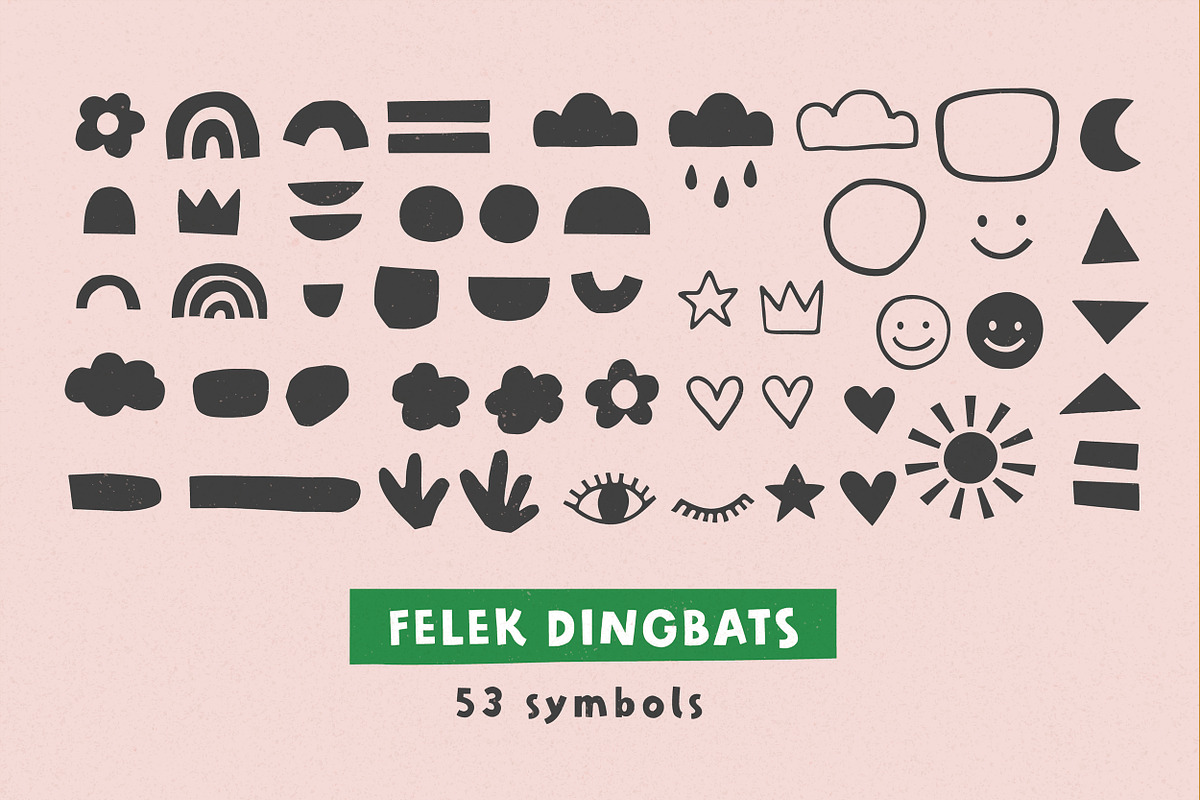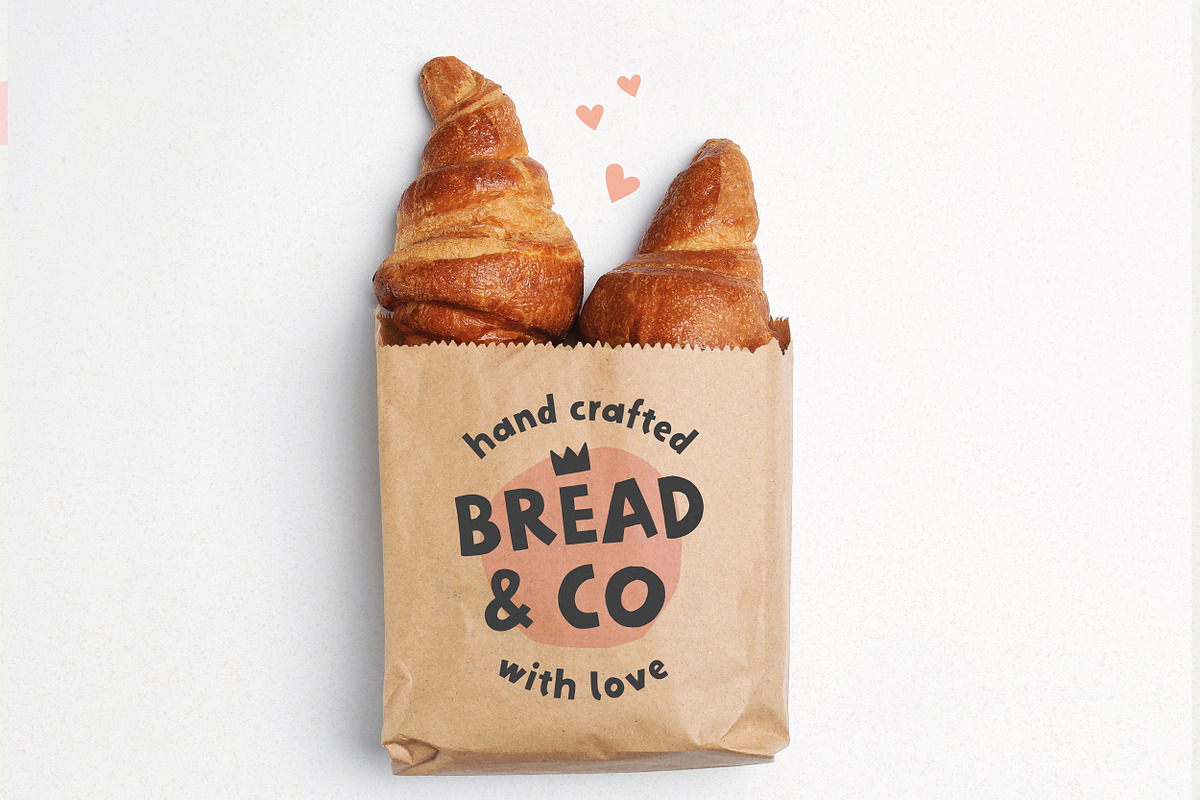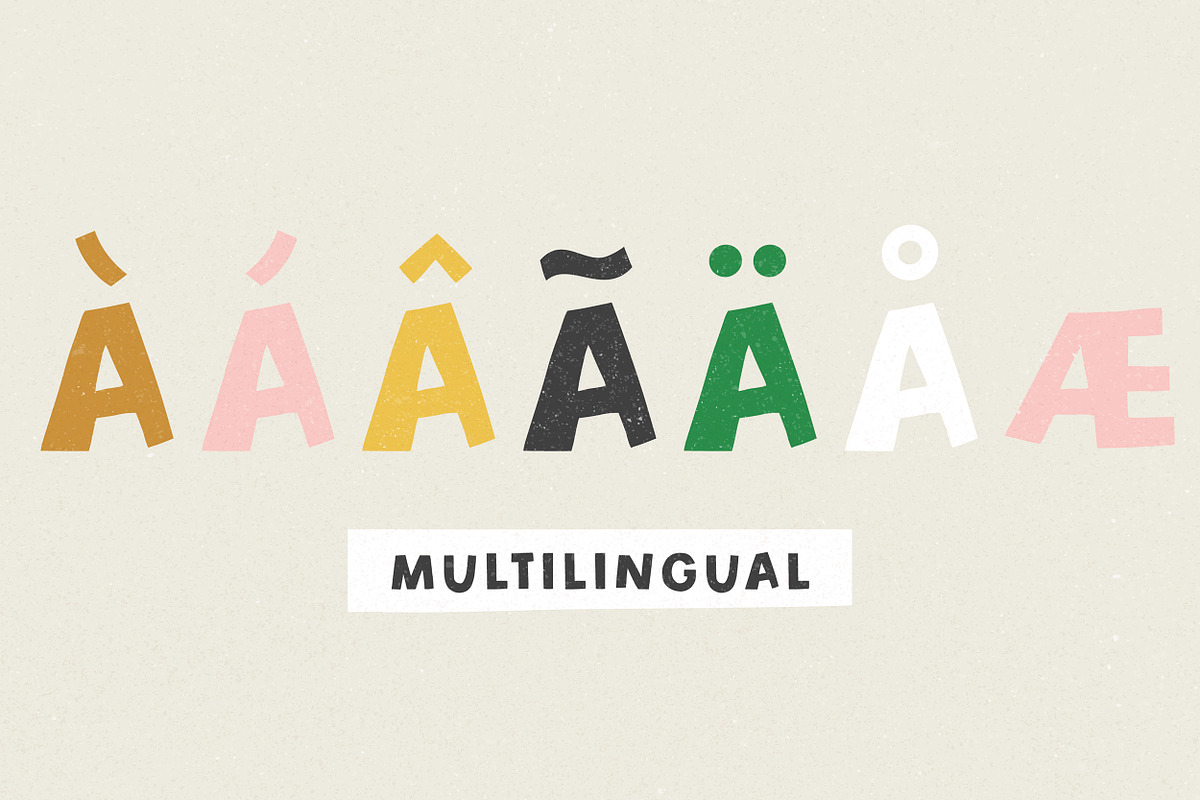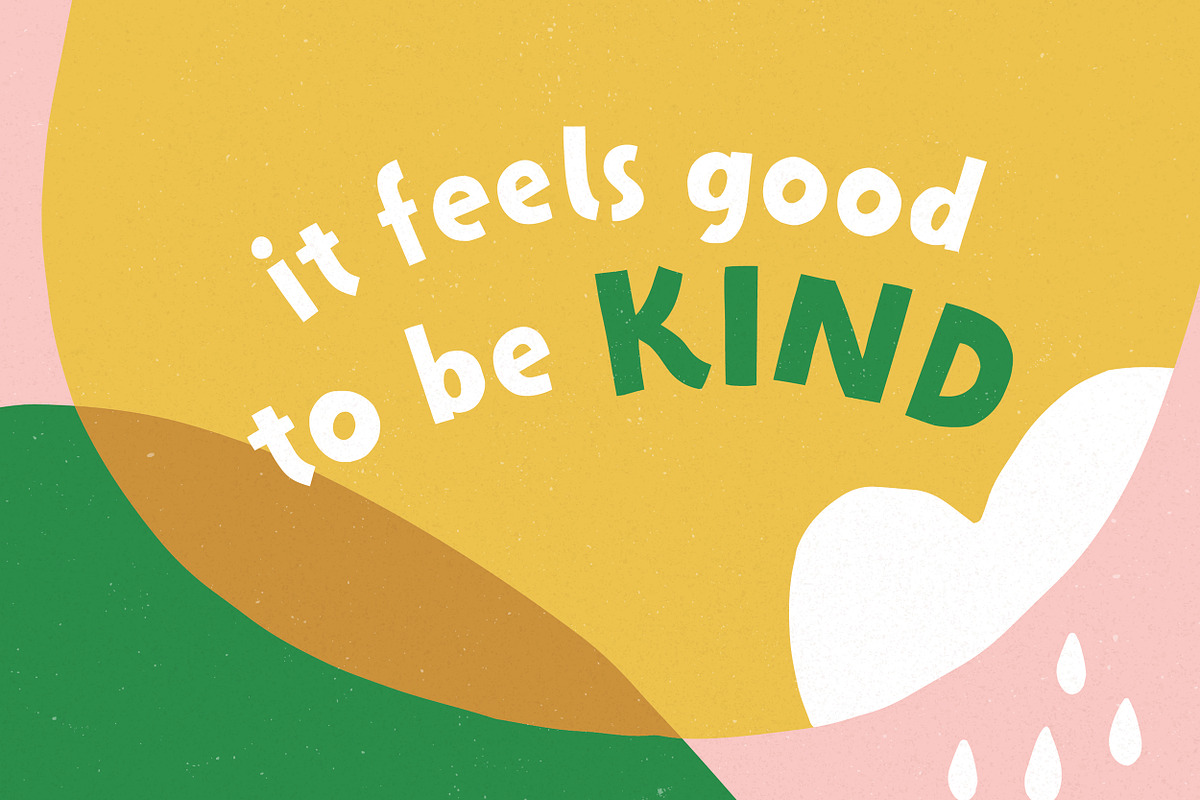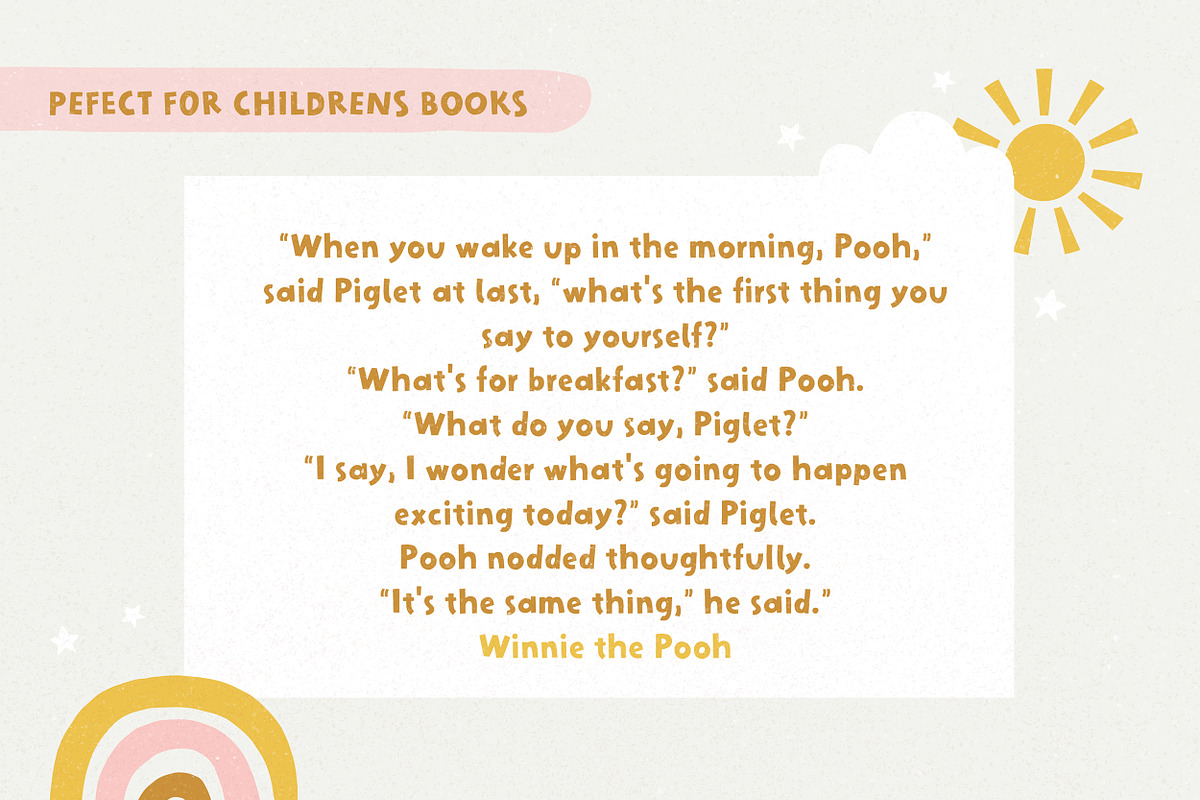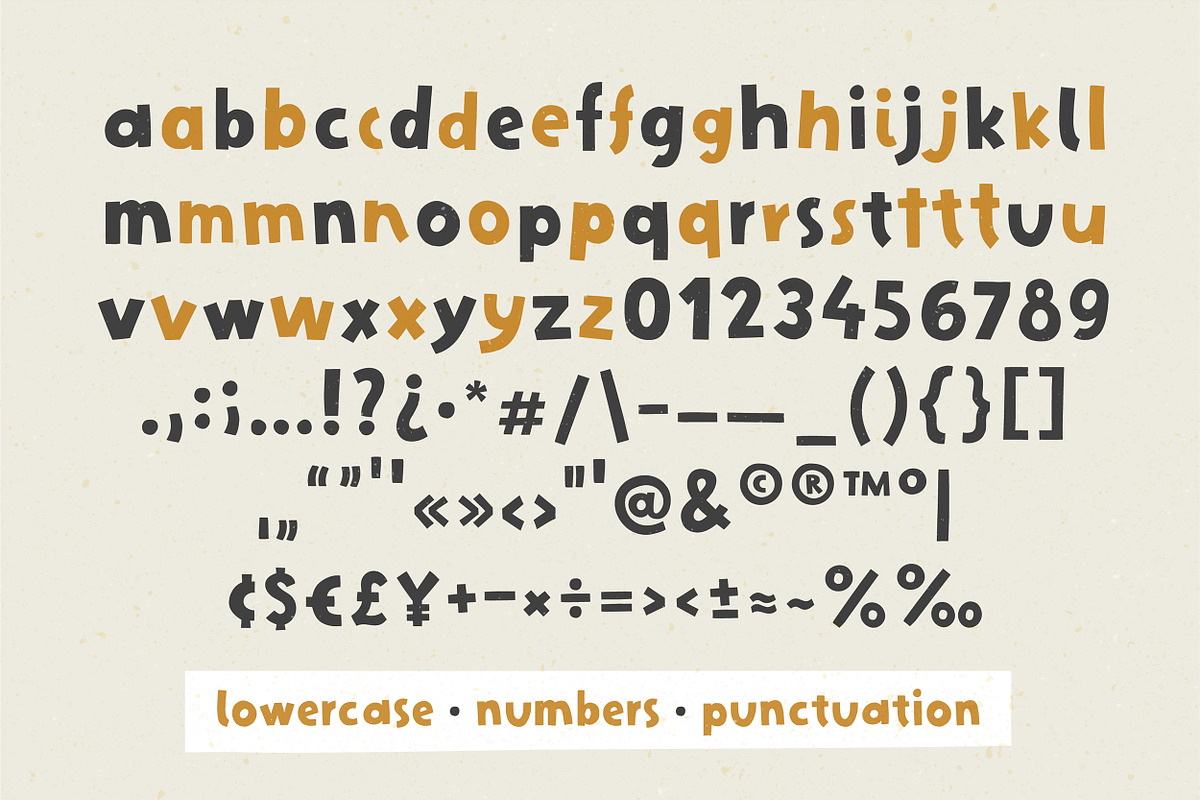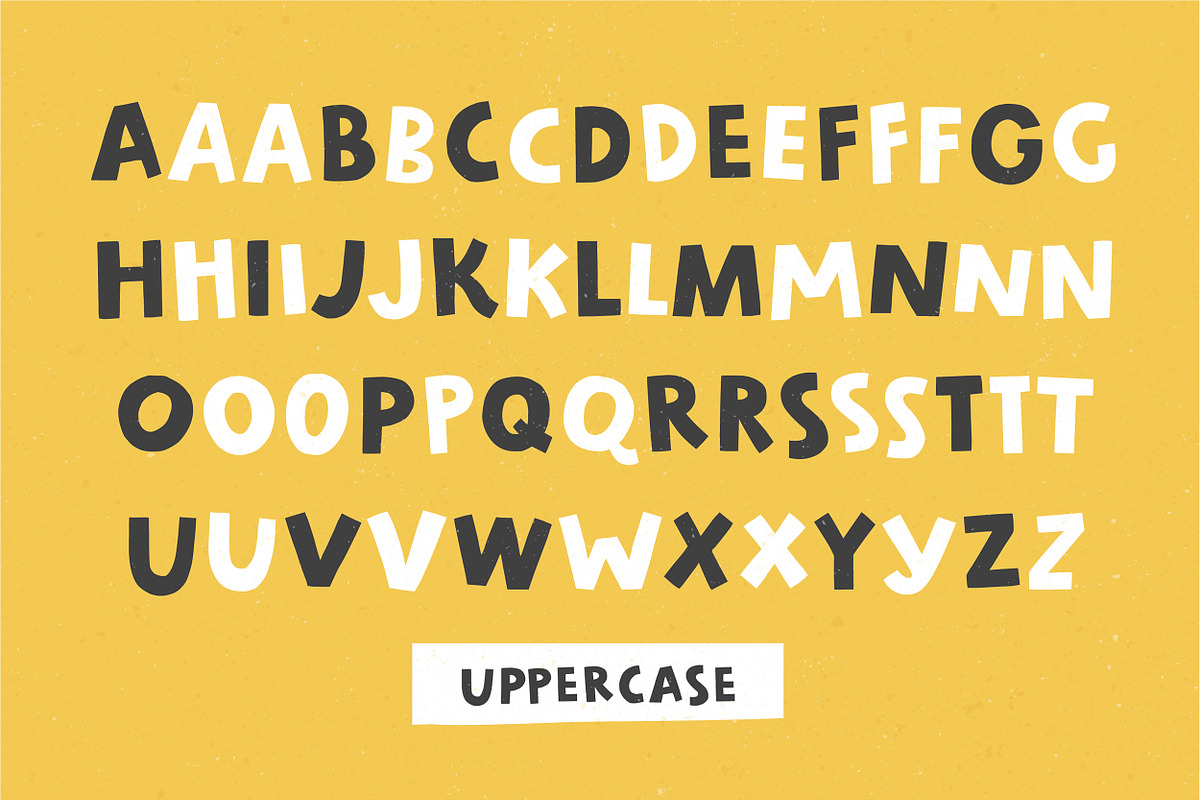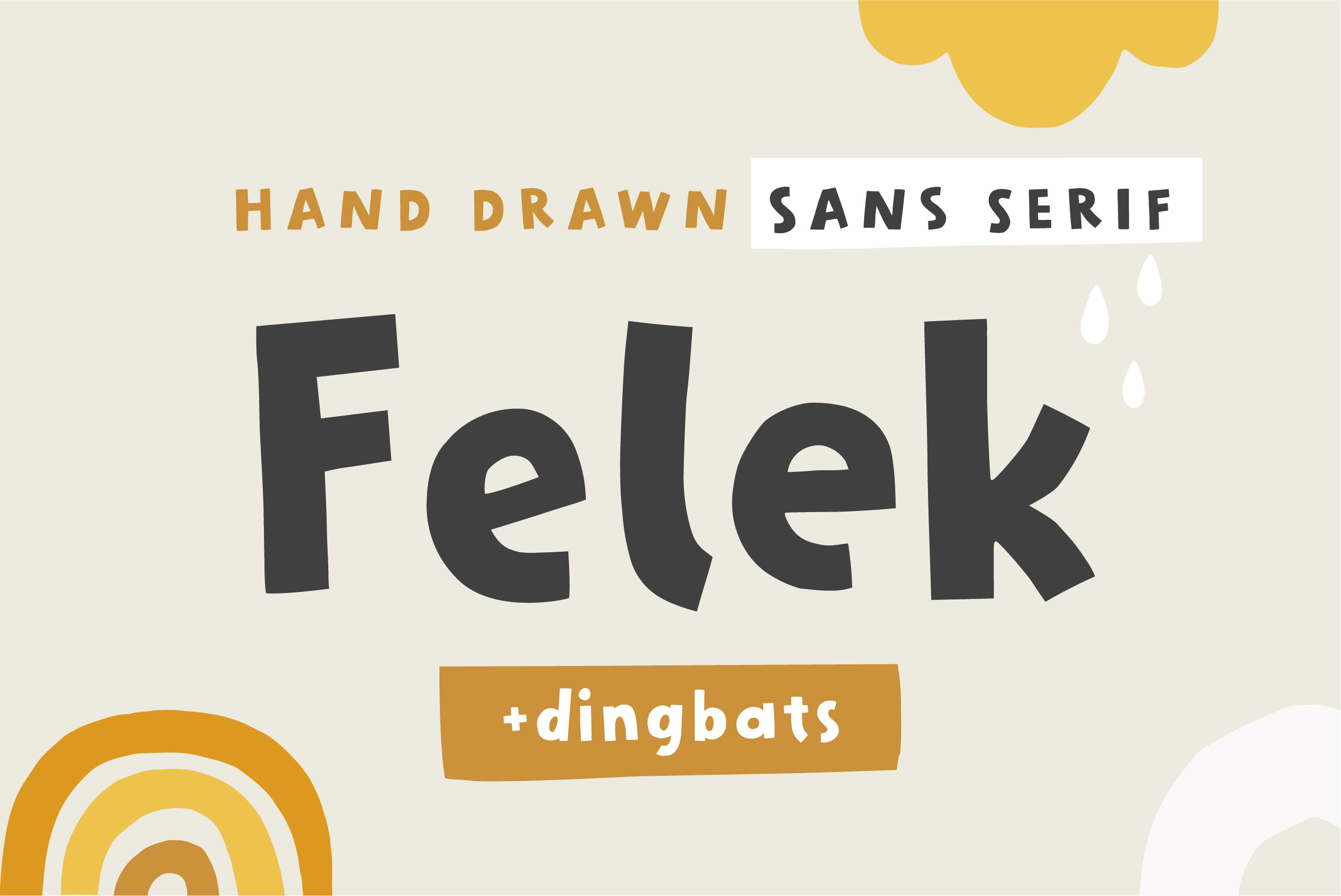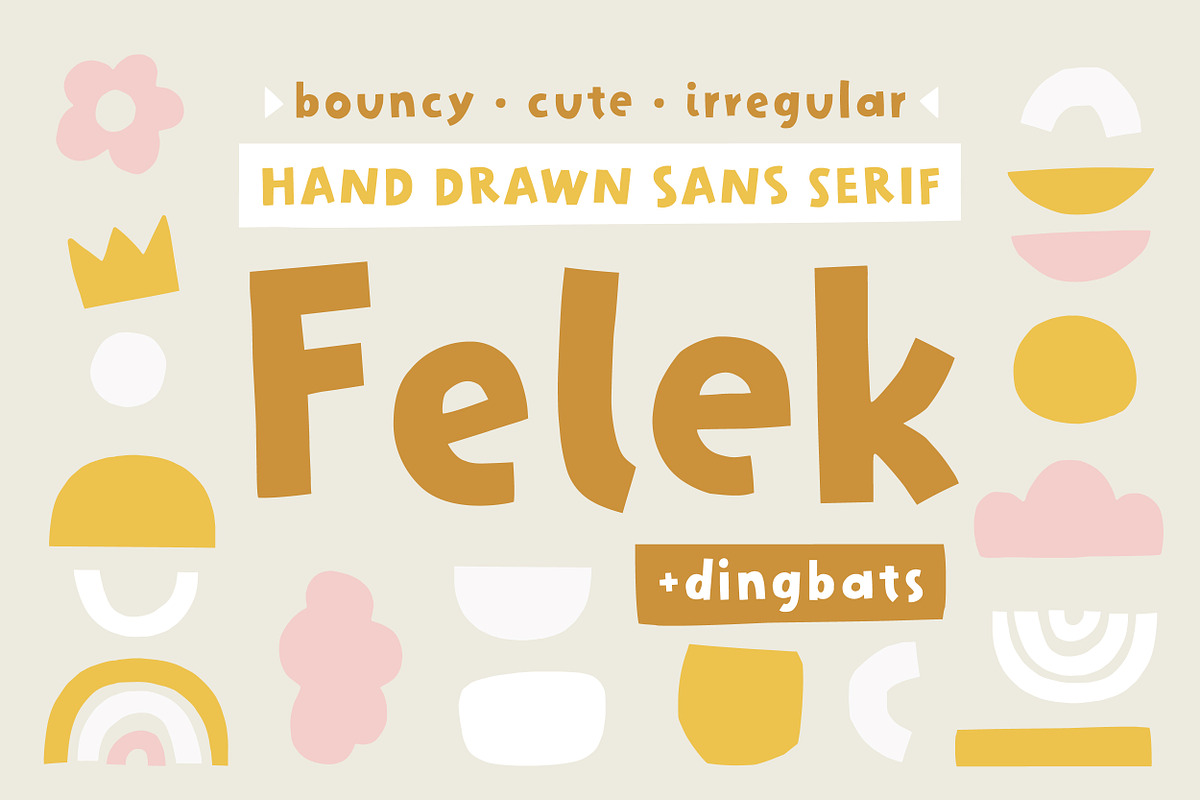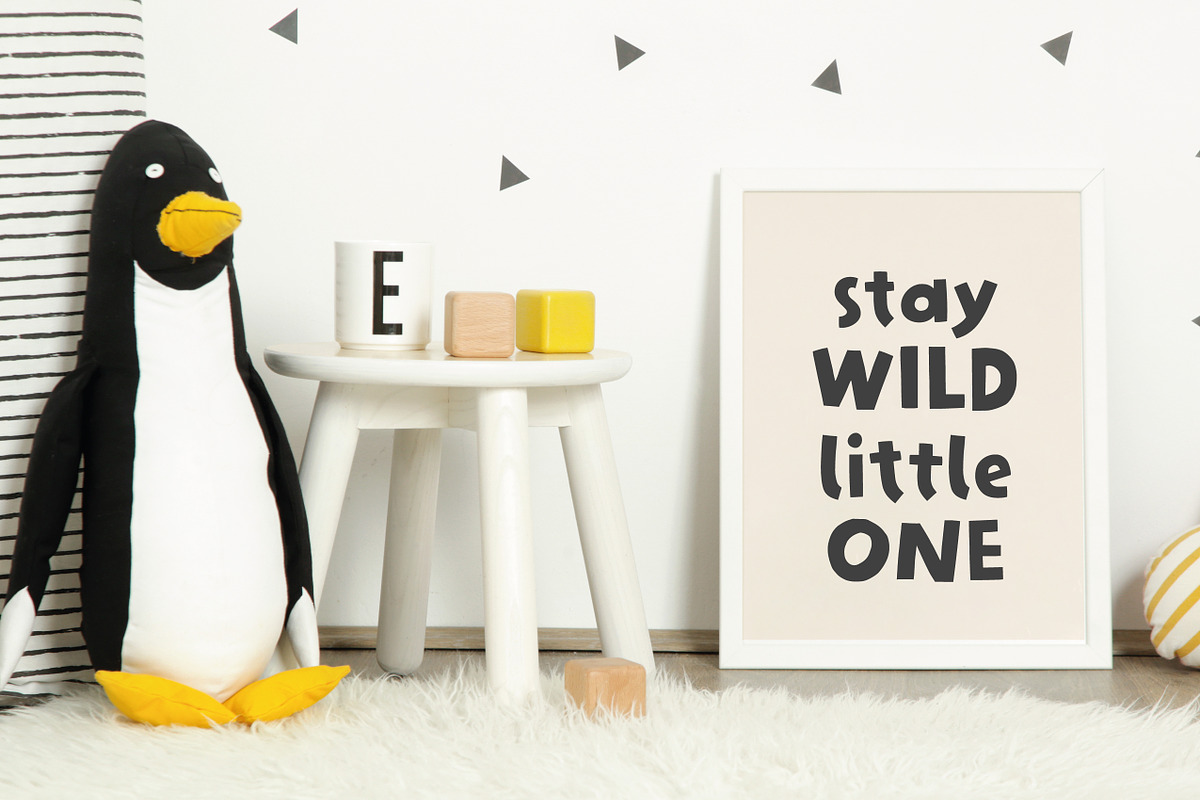
Felek | Hand-drawn sans serif font
Introducing Felek - hand-drawn sans serif font with a lot of character. Playful, bouncy & cute.
Perfect for creating logos, greeting cards, posters, packaging and so much more! Suitable also for longer paragraphs, for example in children's books. Its charming and warm character will help you give your project a truly unique feel.
Designed and kerned with care and love to make using it a breeze.
- a hand-drawn font with lots of stylistic alternates and ligatures
- a dingbat font with 53 illustrations and icons
- multilingual support with accented characters for international designers